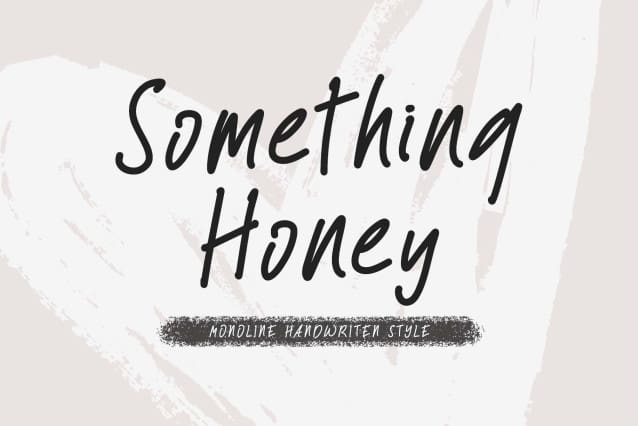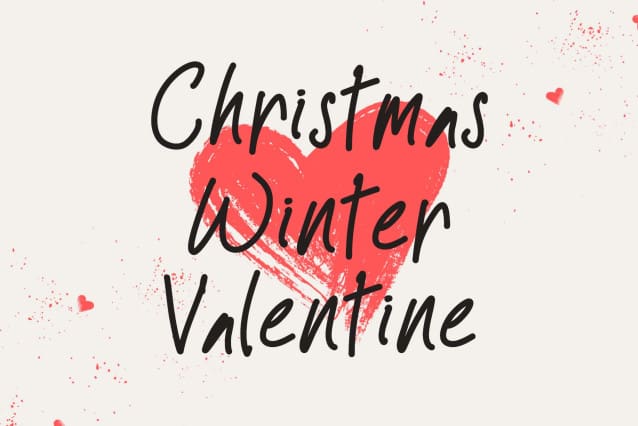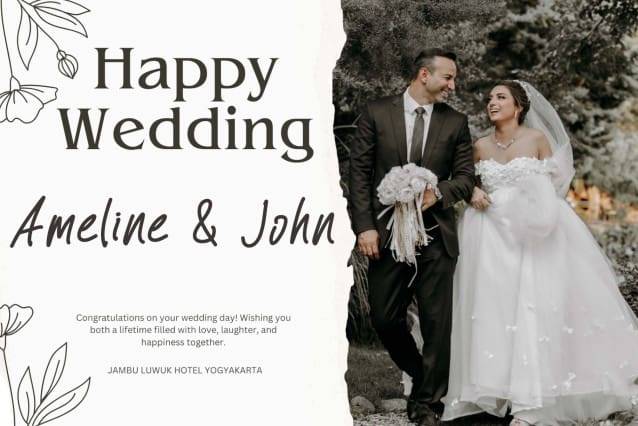
Something Honey Font
Something Honey Font is a beautiful monoline font. It comes with uppercase, lowercase, numbers, punctuation, and multilingual support. Perfect for weddings, photography, invitations, Christmas, Valentine’s, stickers, branding, banners, posters, and more.